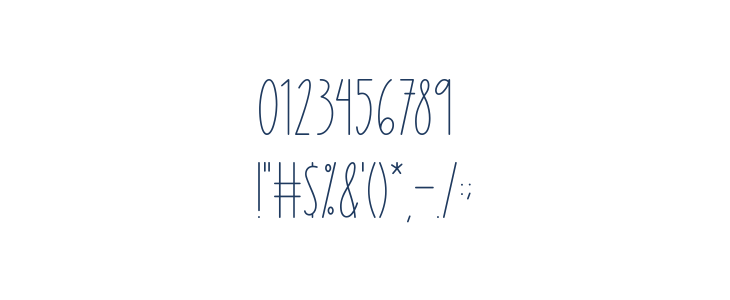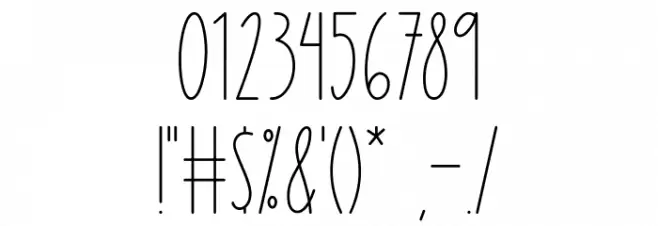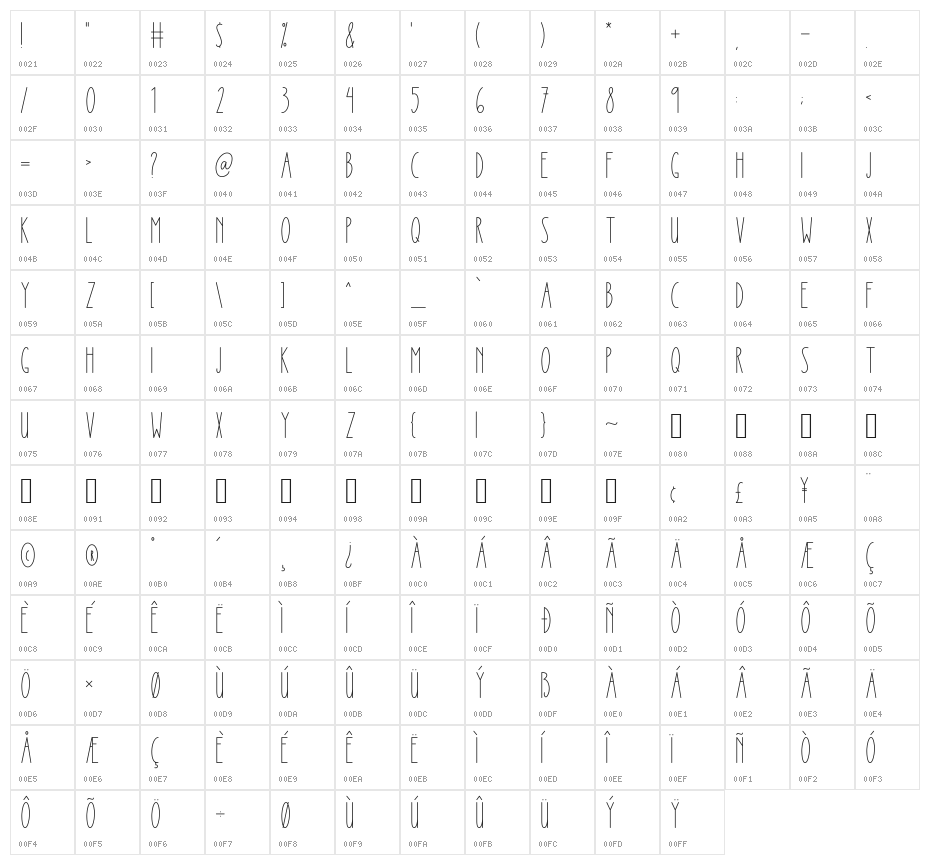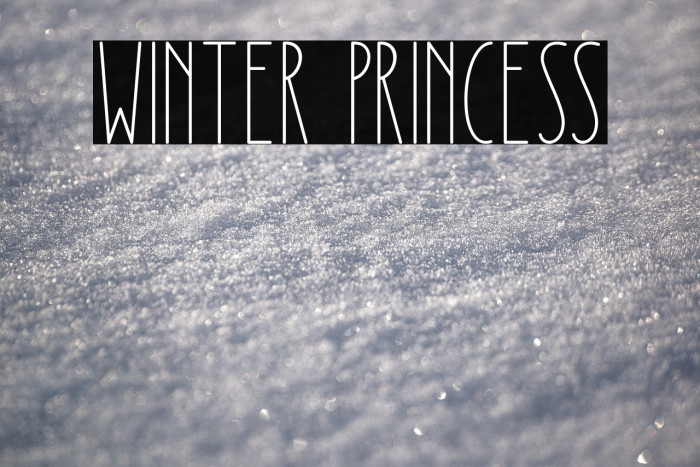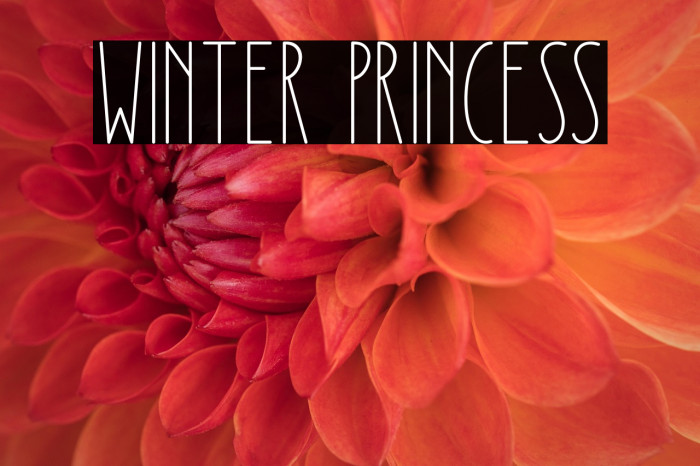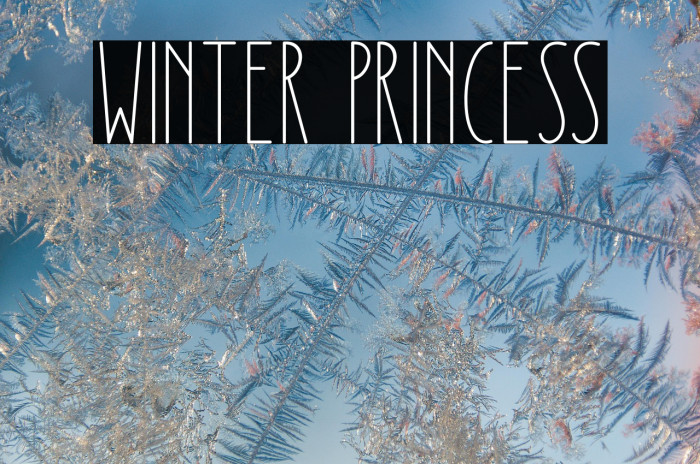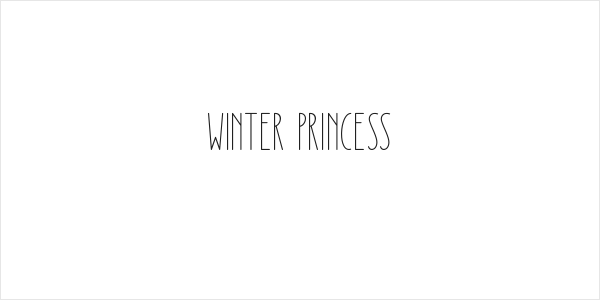
Winter Princess Font
Winter Princess Description
This font features a tall, slender design with a whimsical and elegant touch. The characters are elongated with a consistent stroke width, giving it a delicate and airy appearance. The uppercase and lowercase letters maintain a uniform height, enhancing its sleek and modern aesthetic. The numerals and special characters are designed to complement the overall style, maintaining the same thin and graceful lines. This font's clean and minimalistic look makes it versatile for various design applications.
A tall, slender, and elegant font with a whimsical touch from Regular fonts.
- Proposed Projects: Ideal for wedding invitations, greeting cards, branding projects, and elegant packaging designs.